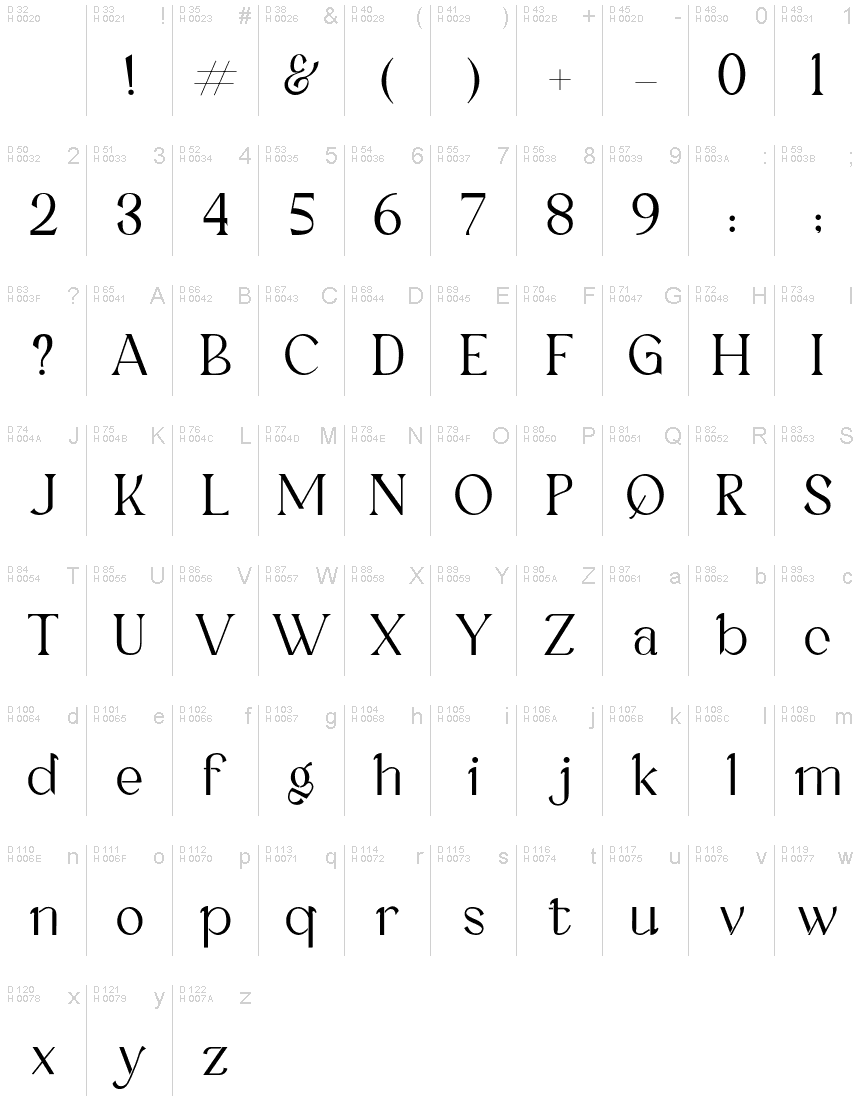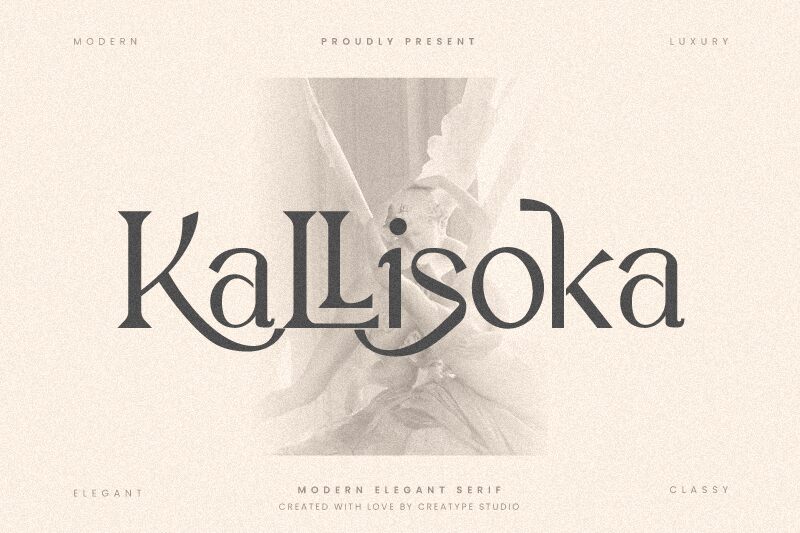
Kallisoka Regular
Kallisoka is a beautiful, light serif font designed by Rian Rahardi. Perfect for creating elegant logos, stylish wedding invitations or modern branding projects, Kallisoka adds a touch of sophistication to any project.